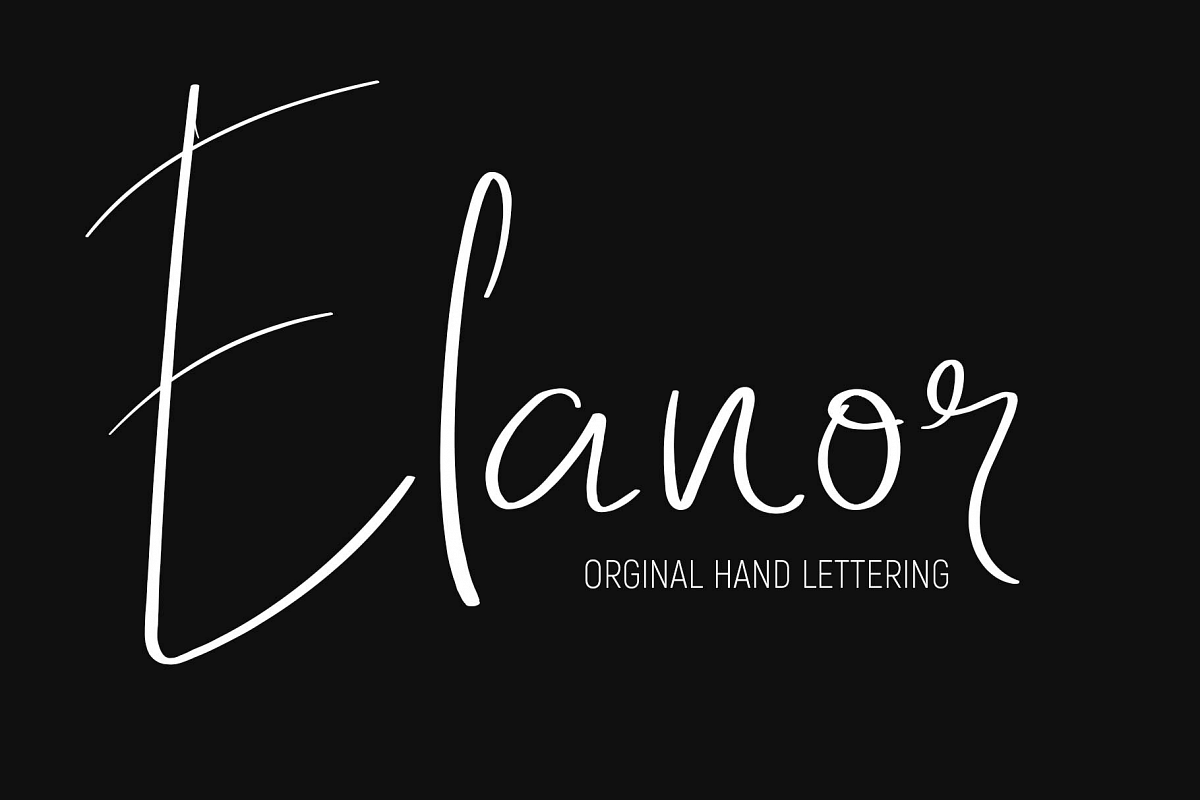
Elanor Font
by Gumacreative
Hello there, Elanor font is original hand writing font that i made for you. It's perfect for you to use it and give your design an authentic touch. This is good for lettering design, banner, retro poster, or even a logo design.